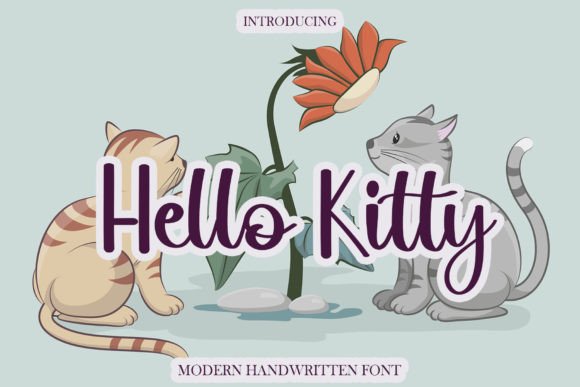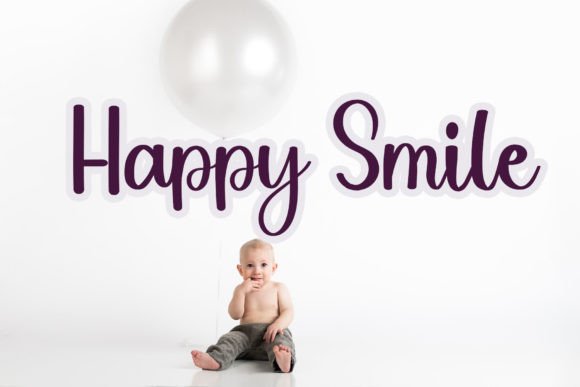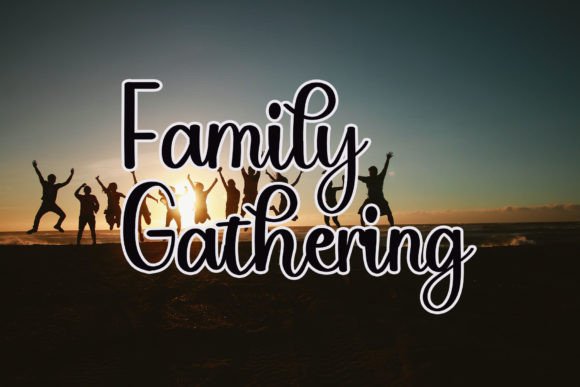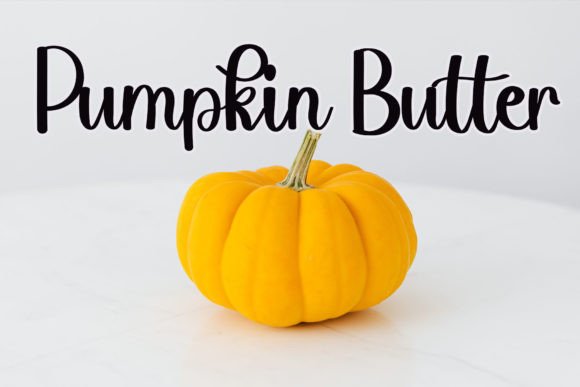
Hello Kitty Font
About Hello Kitty Font
Hello Kitty is an enchanting and beautifully flowing handwritten font. This versatile typeface has a wide spectrum of applications ranging from greeting cards to headlines and is guaranteed to add a romantic feel to your next project!